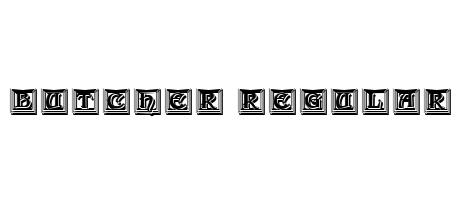
Butcher
Butcher Regular: A bold, blocky serif typeface, each letter encased in a subtly shadowed square frame. It evokes a vintage, almost medieval aesthetic, with its thick strokes and slightly ornate serifs giving it a handcrafted, almost artisanal feel. The style is strong and slightly playful, perfect for titles or headings needing a touch of character.